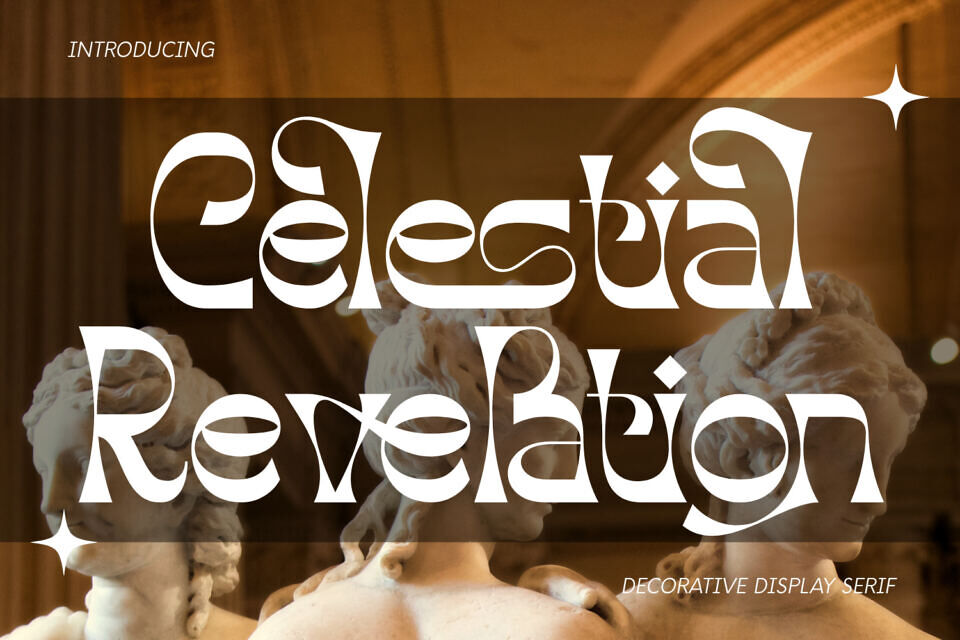
Celestial Revelation Font
Celestial Revelation is an elegant Serif Font. A masterpiece of contrast, blending sharp, geometric precision with fluid, ethereal curves. Inspired by a fusion of Renaissance art and modern psychedelic aesthetics, Celestial Revelation is crafted to transform your typography into a high-fashion statement.
The font’s standout features are its razor-sharp terminals and unique diamond-shaped accents, offering a sophisticated look that is both bold and mysterious. It is an ideal choice for luxury branding, editorial layouts, jewelry packaging, and mystical-themed projects that require a touch of “divine” inspiration.